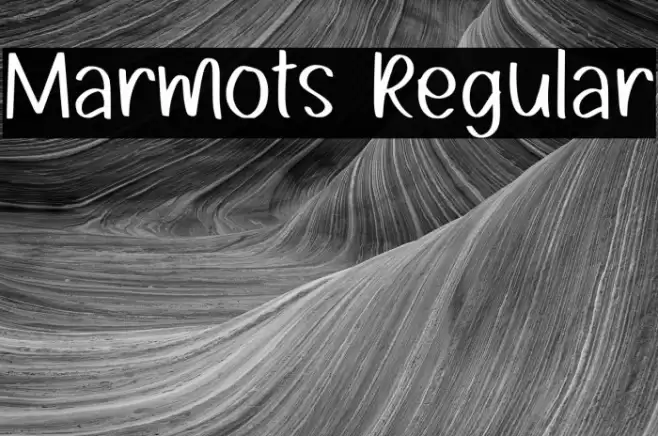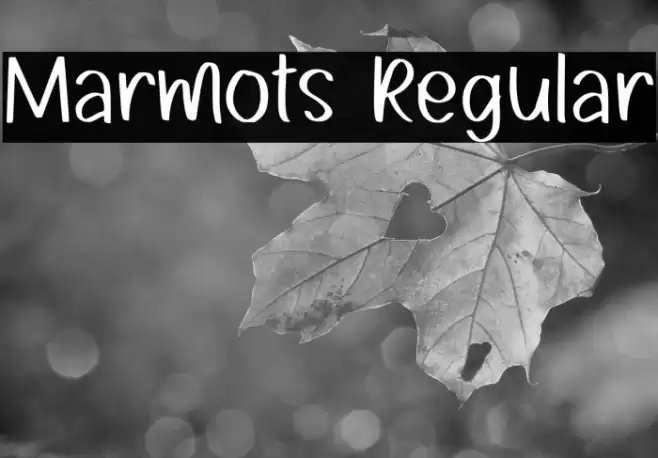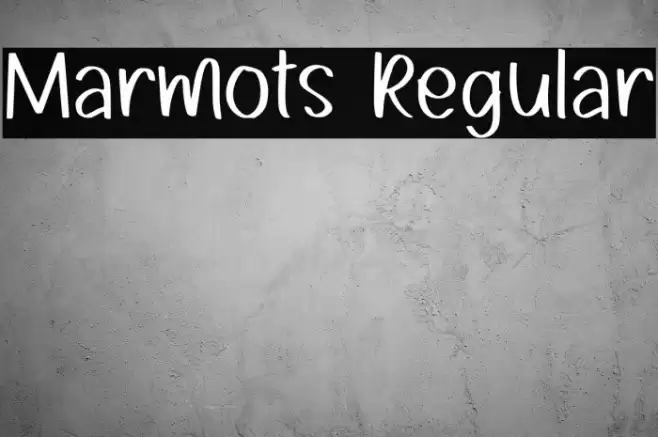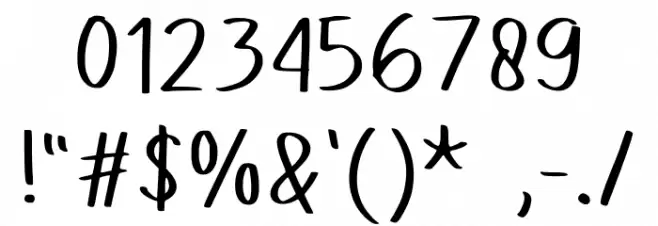
Marmots Regular Font
Marmots Regular Description
This font features a playful and casual handwritten style, characterized by its smooth curves and slightly irregular strokes. The uppercase letters are bold and slightly condensed, giving a sense of energy and movement. The lowercase letters maintain a consistent flow, with rounded edges that add to the overall friendly appearance. The numerals are clear and legible, matching the playful nature of the alphabet. Special characters are well-integrated, maintaining the same whimsical style. This font is perfect for projects that require a personal touch, such as invitations, greeting cards, or playful branding.
A playful, handwritten font with smooth curves and a casual style from Regular fonts.
- Proposed Projects: Ideal for invitations, greeting cards, playful branding, and personal projects.
- Overall Style: Casual, Playful
- Use Case: Headlines, Logos, Invitations